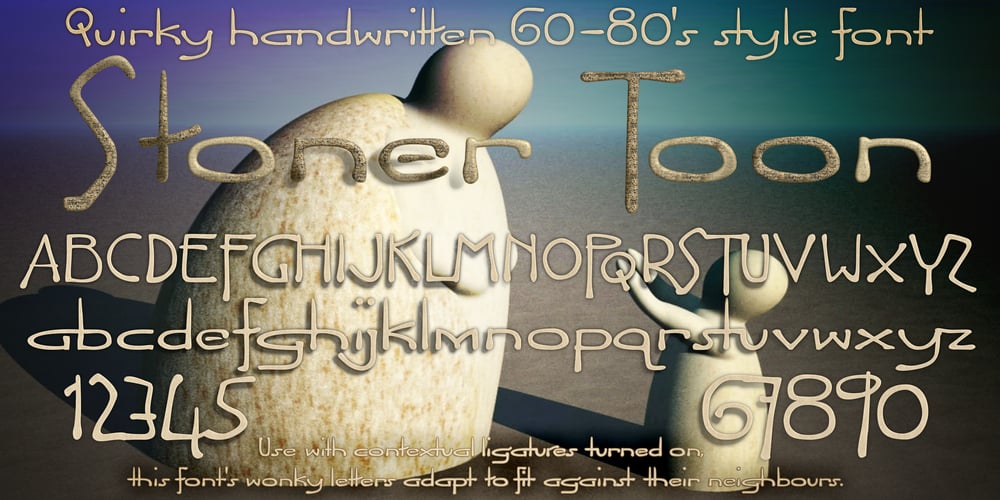
DT Stoner Toon Font Family was designed by Scott Spensley and published by Dragon Tongue Foundry. DT Stoner Toon contains 1 styles and family package options. Inspired by early cool cartoon fonts, early rock and hippie posters, I created this casually organic ‘DT Stoner Toon’ font.Please use with contextual ligatures turned on when possible. These letters like to adapt to their neighbours.60’s60sartdecoartnouveaucartooncartoonesqueCartoon Fontcartoonishcartoonycasualcontextualcoolcool fontcool typefacedotsfunfun fontgigposterhippiehippyjoinedpartyposterposter fontposter typefacerock posterspotsspottedStonedStonerstonestheater postertoonwetwith dotswritten